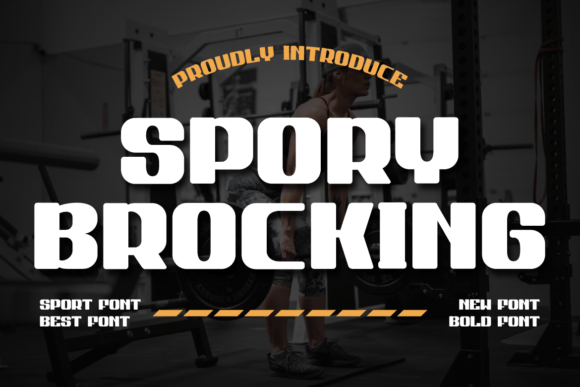
Welcome to the realm of Spory Brocking Font, a remarkable display font that echoes the heart of classic comic books, inviting you to craft captivating narratives and vibrant designs. This font is a tour de force, a visual symphony that commands attention and ignites imagination.
Picture yourself creating logos that leap off the page, posters that resonate with energy, and headlines that demand to be read. Spory Brocking Font empowers you to weave tales that captivate, to transport your audience into worlds of adventure and intrigue.
With its bold and authentic strokes, Spory Brocking Font exudes a sense of dynamism and authenticity. It is a font that refuses to be ignored, demanding attention with its commanding presence. Each letter is a work of art, meticulously crafted to convey power and personality.
Step into the world of Spory Brocking Font and unleash your creativity. This font is your gateway to creating designs that resonate, that leave an indelible mark on your audience. Let your imagination run wild as you explore the countless possibilities that await you.
Spory Brocking Font is the ultimate choice for designers, artists, and storytellers who seek to create truly exceptional work. Embrace its bold energy and watch as your designs transform into captivating masterpieces.